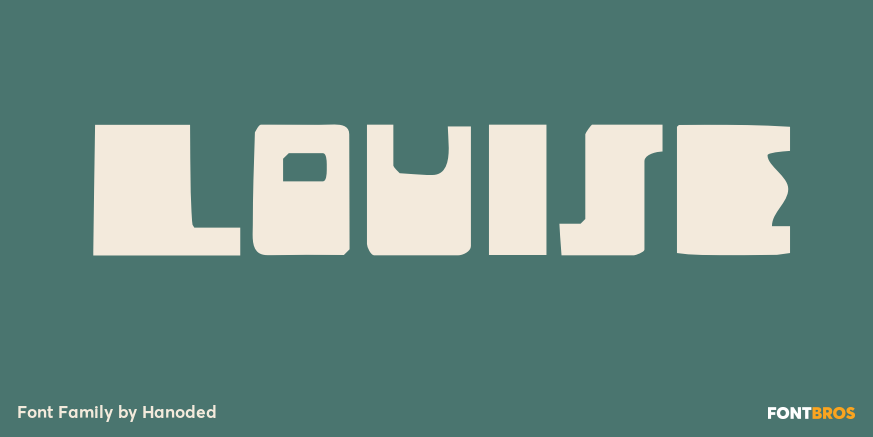
Louise
About Louise
Louise font was based on the art of Louise Marie (lou) Loeber, a Dutch painter. She was born in Amsterdam in 1894 and flirted with several styles like De Stijl, Cubism and Bauhaus. Her artworks are characterized by a sober use of geometric shapes; lines,…